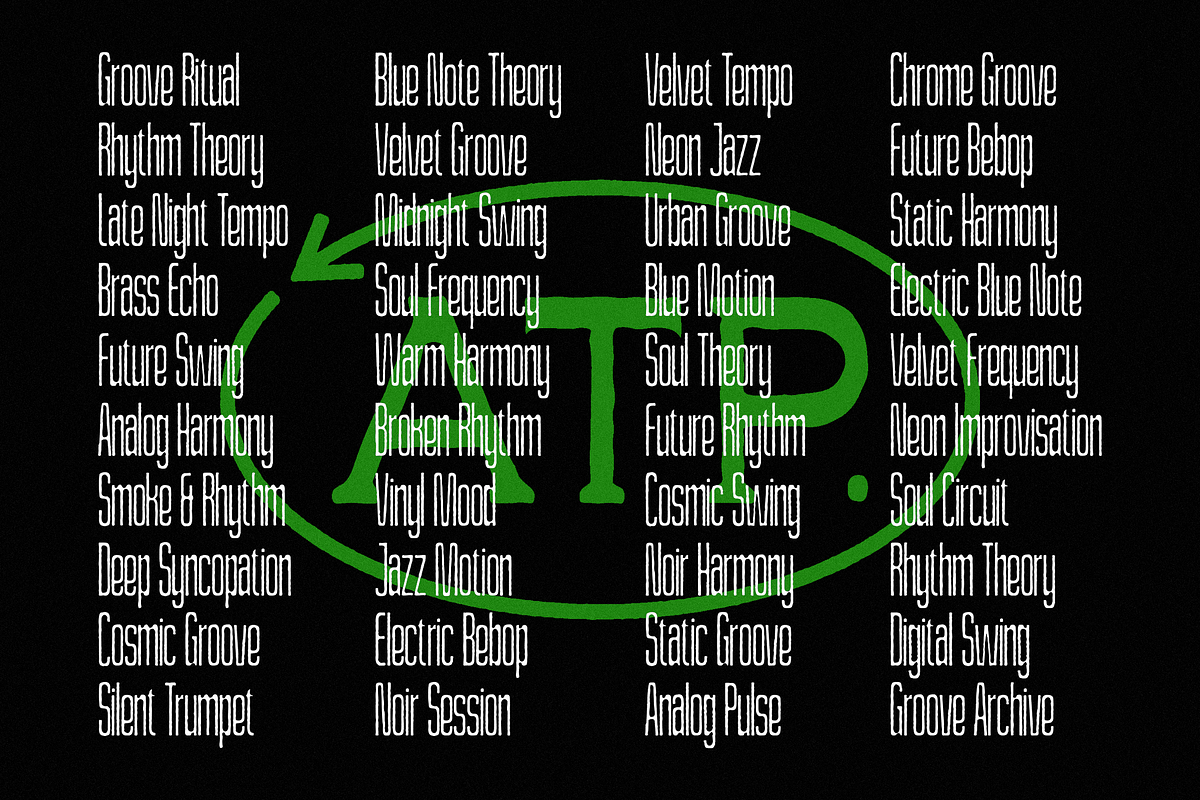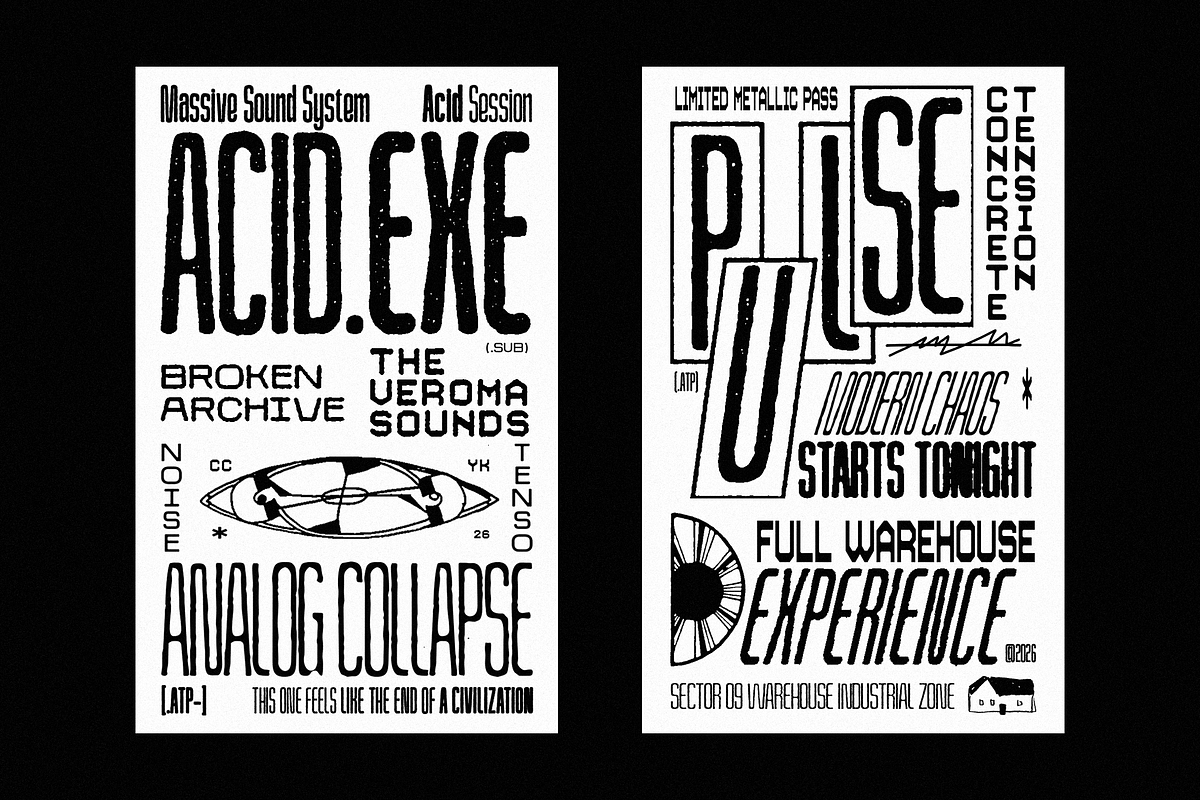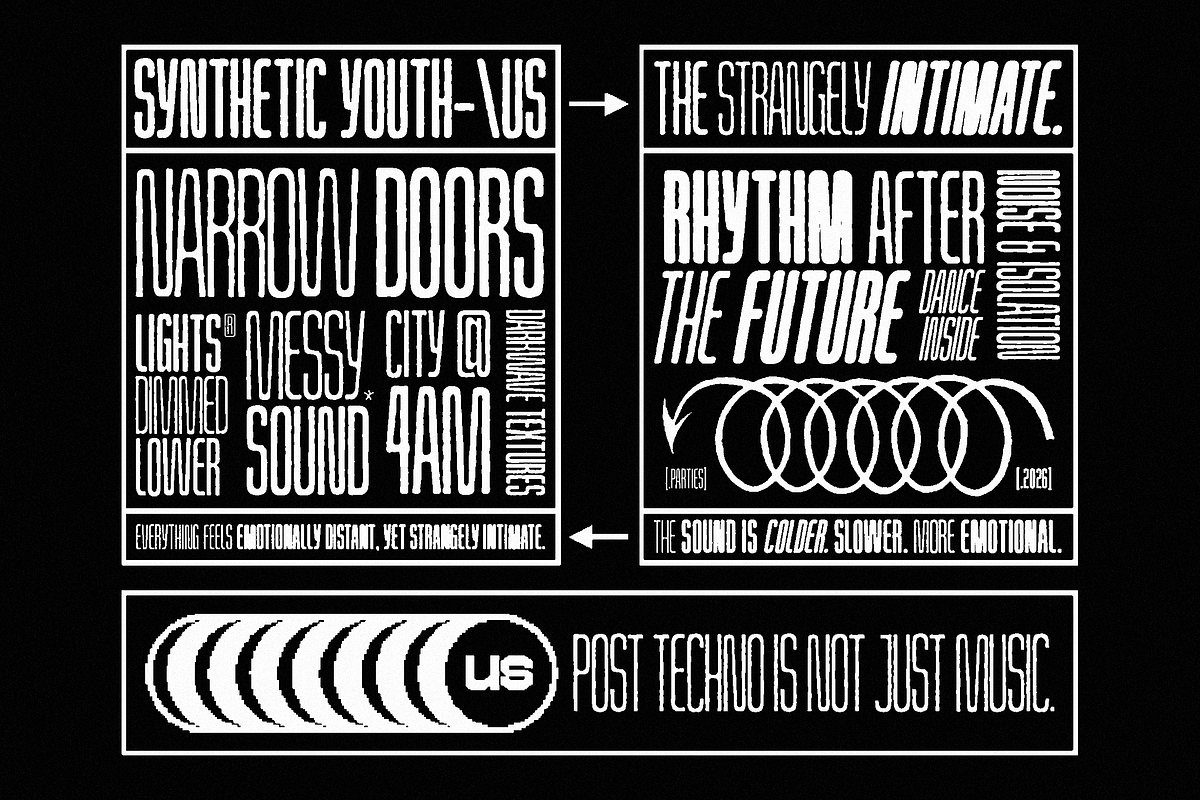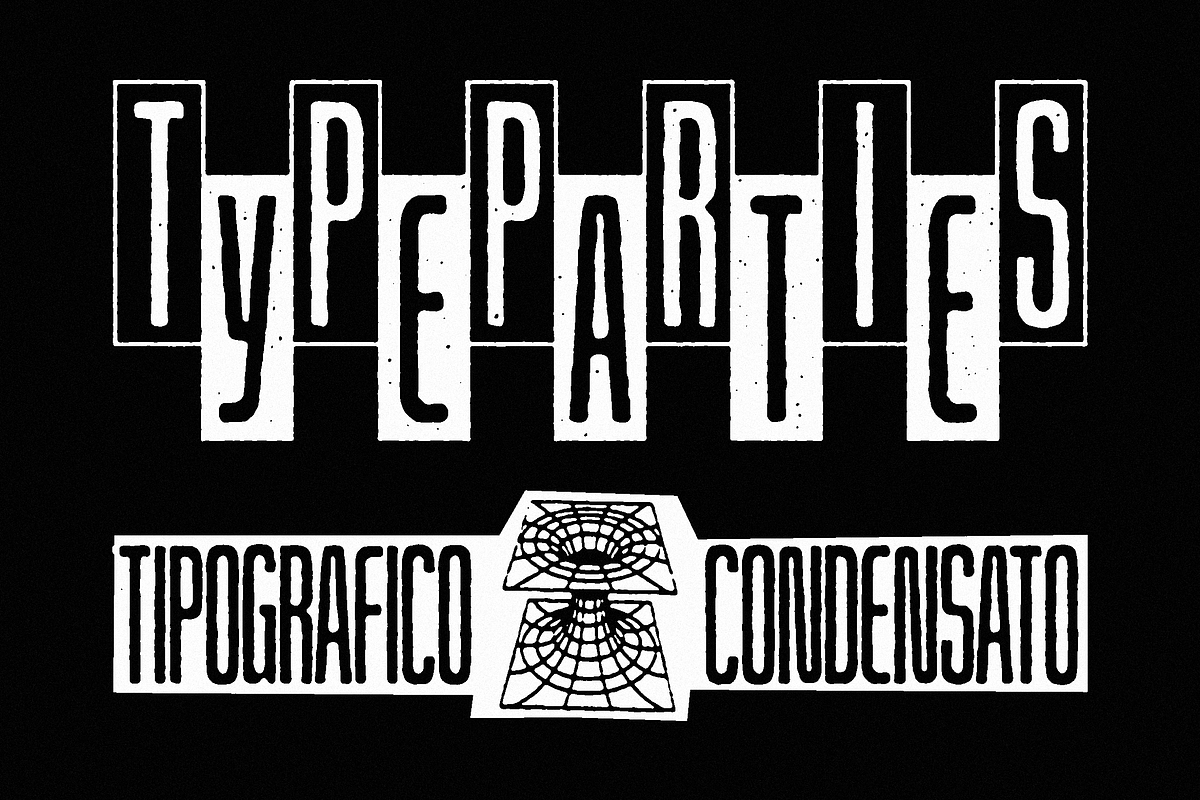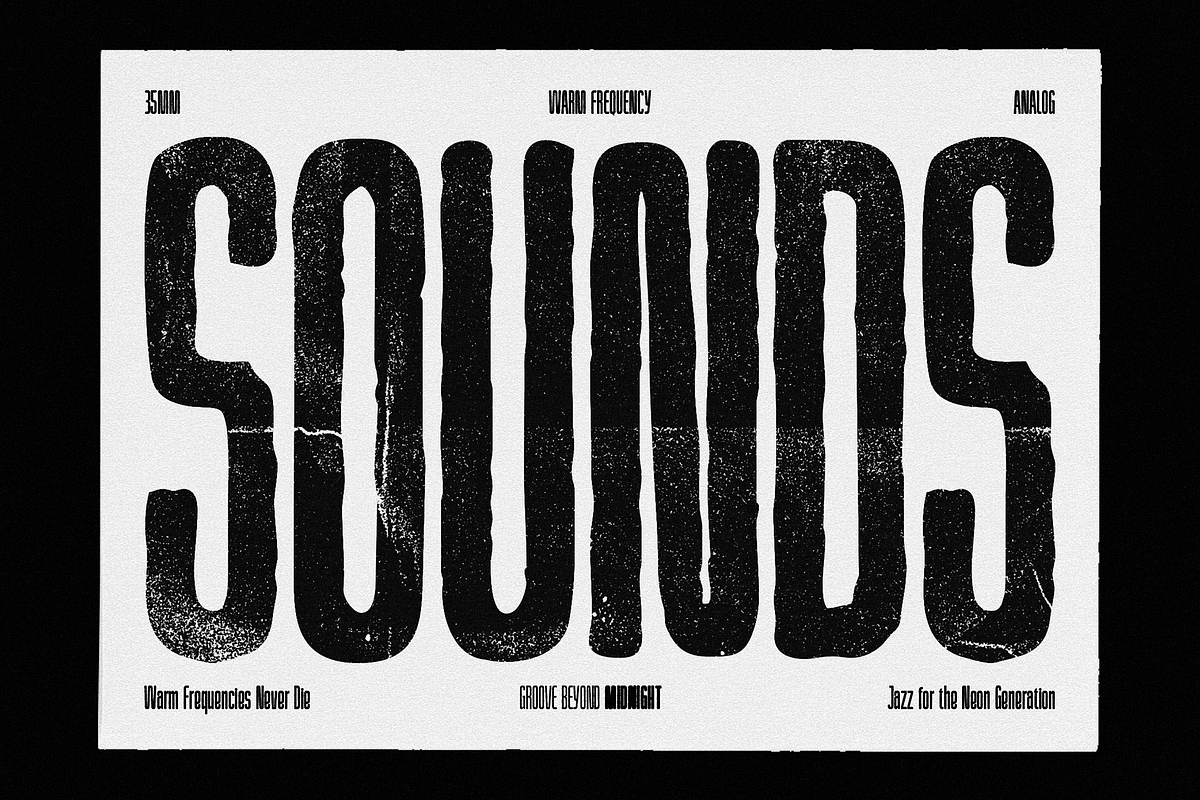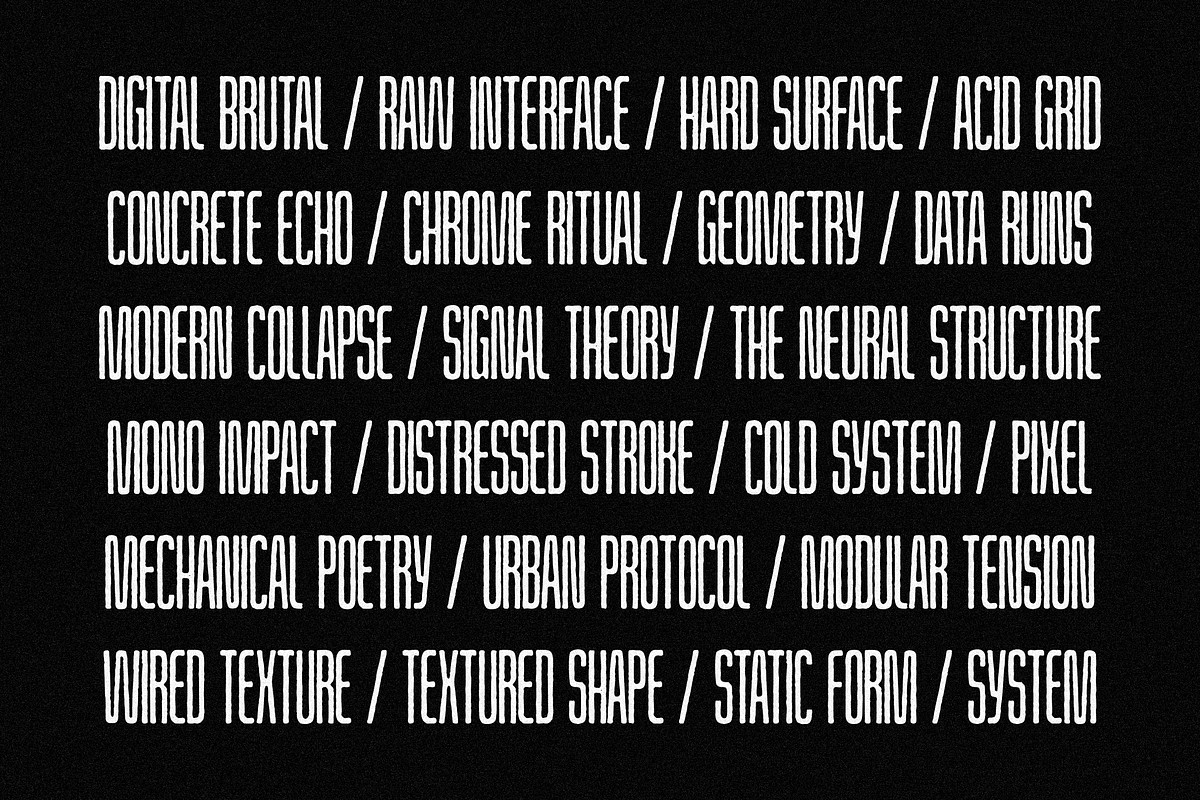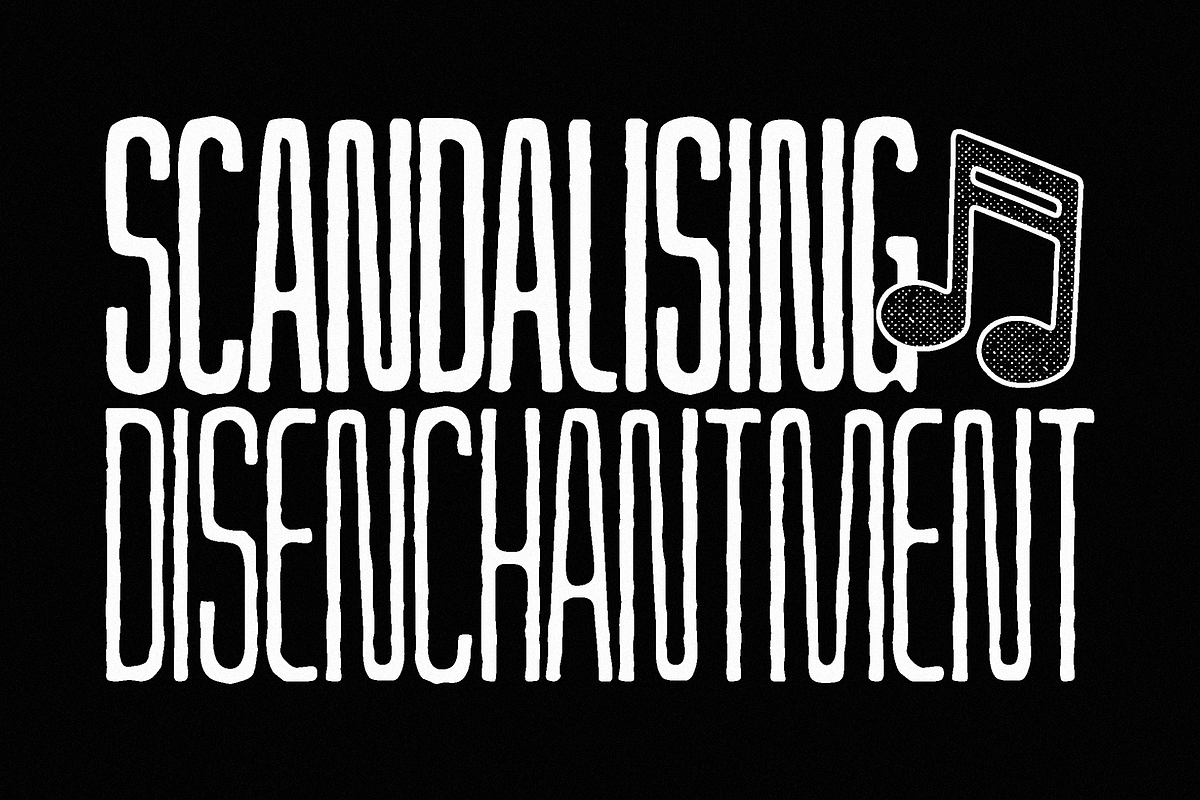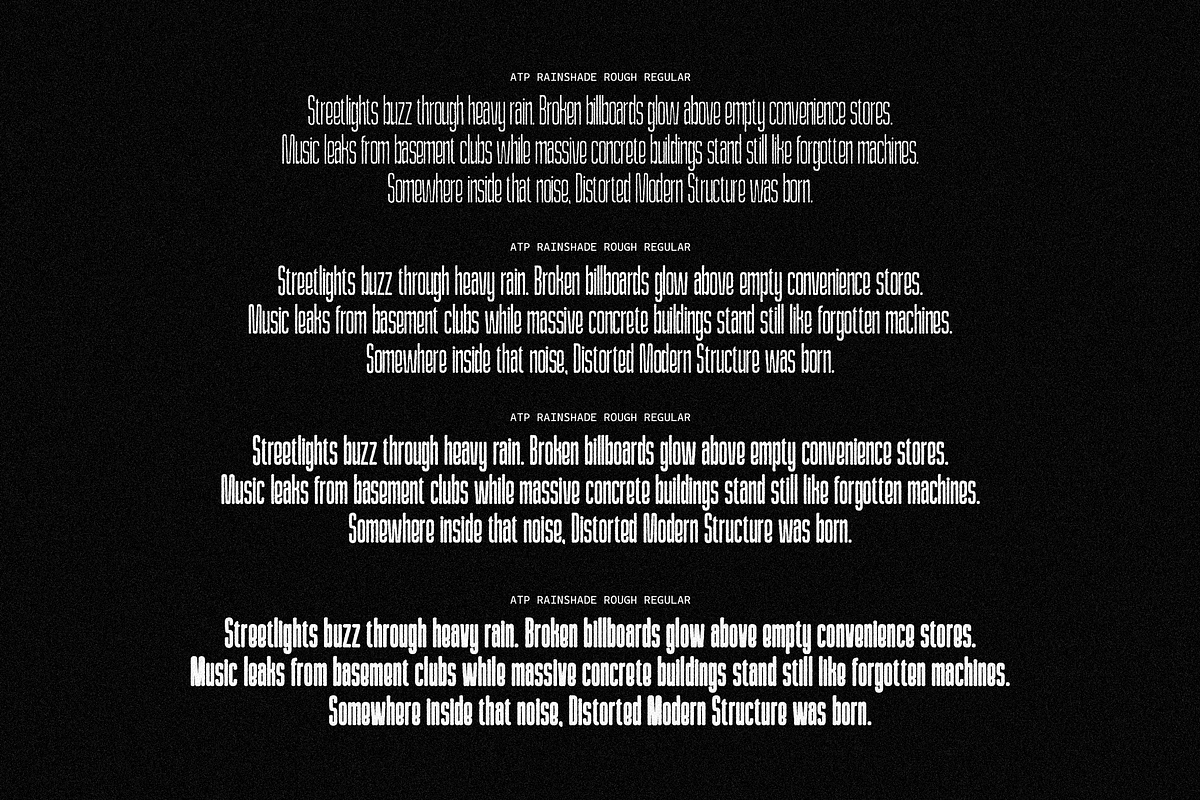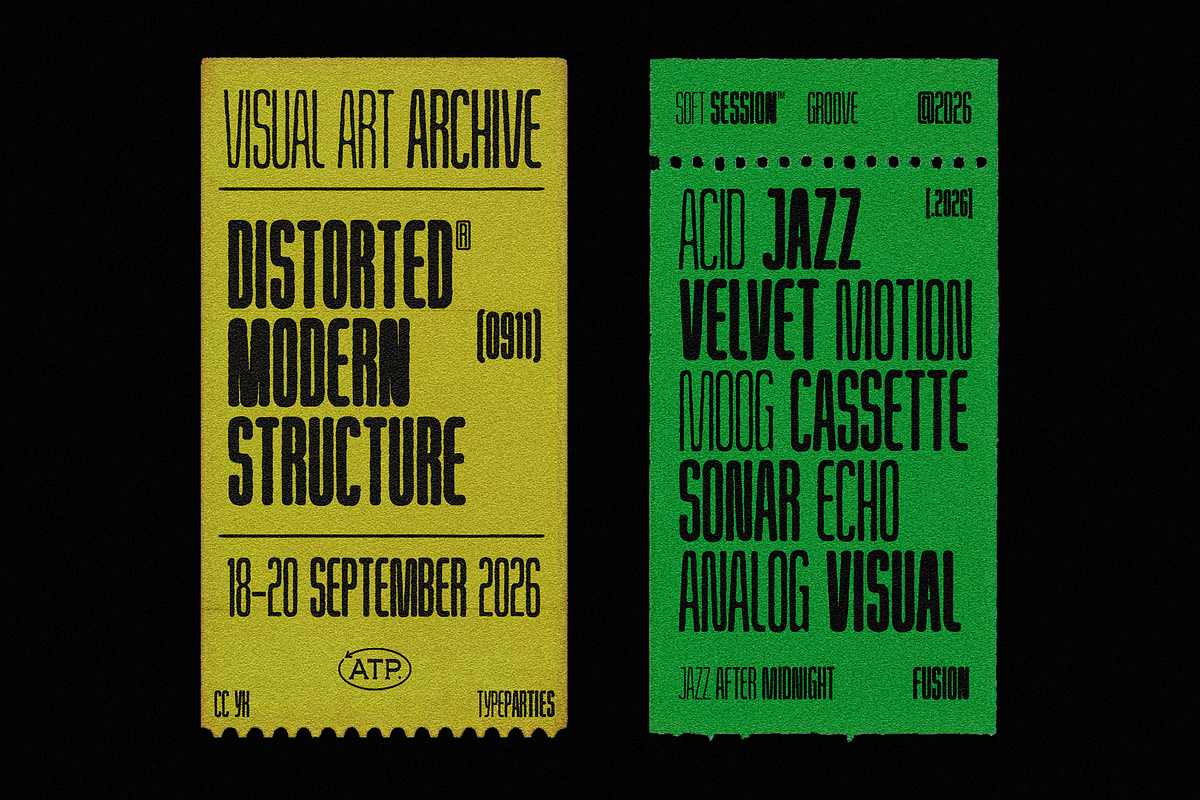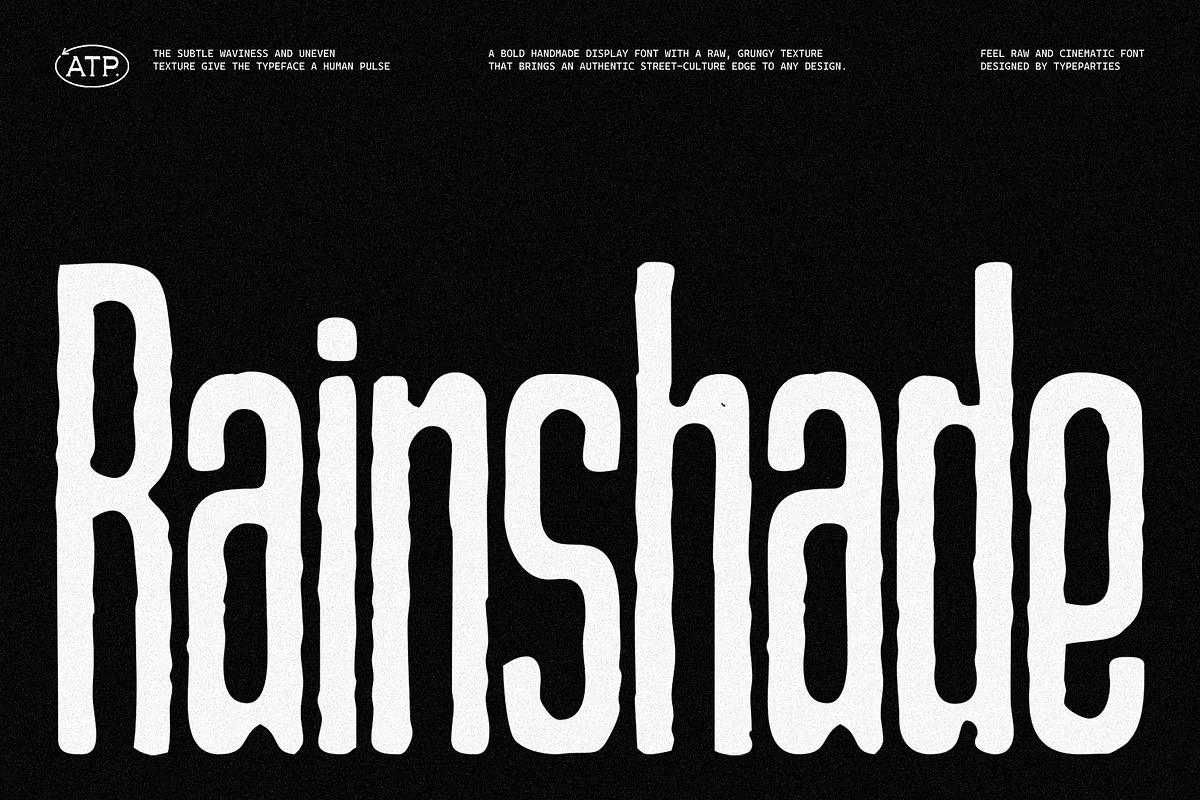
Rainshade Rough - Condensed Font
Actually created Rainshade Rough from the idea that imperfect shapes always feel more alive than clean geometry. I wanted a condensed font that felt stretched, restless, and emotional, like old gig posters left under rain, photocopied zines, or underground club flyers taped across city walls at 2AM.
Instead of building perfectly straight lines, I let the characters move organically. The subtle waviness and uneven texture give the typeface a human pulse, making every word feel raw and cinematic. It has that balance between controlled structure and visual chaos, narrow enough to feel compact, but expressive enough to dominate a layout instantly.
Rainshade Rough was designed for creators who love bold typography with personality. It works especially well for music artwork, fashion branding, experimental editorials, indie films, dark packaging, and modern poster culture. The tall proportions create strong vertical movement, while the handmade imperfections keep the font feeling emotional rather than mechanical.
Lowercase
Numerics